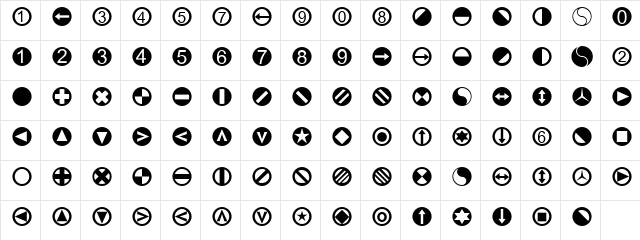
LTTapestry Circle Medium
Design Context for LTTapestry Circle Typeface
LTTapestry Circle takes a measured approach to typography — its balanced proportions and neutral character make it a reliable workhorse for both digital and print work.